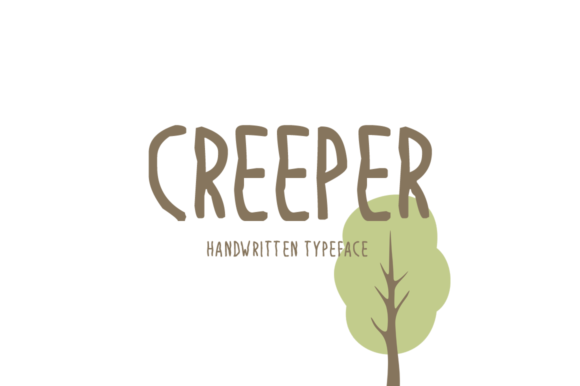
Introducing Creeper Font, the captivating display font that will ignite your designs with a touch of whimsy. Its playful and charismatic nature will draw attention to your creations, making them stand out from the crowd. Indulge in the charm of its quirky strokes, crafted by the renowned Imposing Fonts, and watch your imagination soar. With Creeper Font, you have the power to transform your designs into captivating masterpieces, leaving an unforgettable impression on all who behold them.
Unleash the versatility of Creeper Font and let your creativity shine. Its dynamic character lends itself perfectly to a wide range of design projects, from cheerful posters and playful invitations to eye-catching headlines and vibrant social media graphics. Let the whimsical spirit of Creeper Font ignite your vision and elevate your designs to new heights of creativity.
Don't settle for ordinary fonts when you can embrace the extraordinary. Creeper Font is your key to unlocking a world of design possibilities. Its unique and captivating style will add a touch of magic to your projects, leaving a lasting impression on your audience. So why wait? Dive into the world of Creeper Font today and let your designs blossom with a touch of enchanting flair.